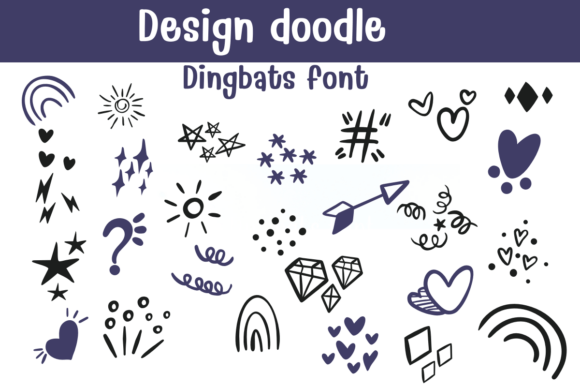
Introducing Design Doodle Font: Add Whimsy and Charm to Your Designs
Are you looking for a font that can add a touch of playfulness and creativity to your designs? Look no further than Design Doodle Font! This delightful dingbats font is filled with whimsical elements like stars, hearts, arrows, sparkles, swirls, and fun hand-drawn shapes that are perfect for adding charm to planners, scrapbooks, stickers, branding, and social media graphics.
What is Design Doodle Font?
Design Doodle Font is a unique and playful dingbats font that is designed to add a touch of whimsy to your designs. The font is filled with a wide range of fun and creative elements, including stars, hearts, arrows, sparkles, swirls, and hand-drawn shapes. These elements can be used to add visual interest and personality to a variety of design projects, from planners and scrapbooks to stickers and social media graphics.
Features of Design Doodle Font
Design Doodle Font comes with a wide range of features that make it the perfect choice for adding a touch of whimsy to your designs. Some of the key features of this font include:
- Whimsical elements: The font includes a wide range of whimsical elements, such as stars, hearts, arrows, sparkles, swirls, and hand-drawn shapes.
- Playful dingbats: Design Doodle Font is a dingbats font, which means that it includes a wide range of playful and creative symbols that can be used to add visual interest to your designs.
- Hand-drawn shapes: The font includes a range of hand-drawn shapes that can be used to add a touch of personality to your designs.
- Perfect for planners and scrapbooks: Design Doodle Font is perfect for adding a touch of whimsy to planners and scrapbooks.
- Ideal for stickers and social media graphics: The font is also ideal for use in stickers and social media graphics, where a playful and creative touch is often needed.
Uses of Design Doodle Font
Design Doodle Font is a versatile font that can be used in a wide range of design projects. Some of the most popular uses for this font include:
- Planners: Design Doodle Font is perfect for adding a touch of whimsy to planners and organizers.
- Scrapbooks: The font is also ideal for use in scrapbooks, where it can be used to add a playful and creative touch to photos and other elements.
- Stickers: Design Doodle Font is perfect for use in stickers, where a playful and creative touch is often needed.
- Branding: The font can also be used in branding projects, where it can be used to add a touch of personality and whimsy to logos and other branding elements.
- Social media graphics: Design Doodle Font is ideal for use in social media graphics, where a playful and creative touch is often needed to grab the attention of viewers.
Benefits of Using Design Doodle Font
There are many benefits to using Design Doodle Font in your designs. Some of the key benefits of this font include:
- Adds a touch of whimsy: Design Doodle Font adds a touch of whimsy and playfulness to designs, making them more visually interesting and engaging.
- Increases creativity: The font’s creative and playful elements can help to increase creativity and inspire new ideas.
- Perfect for a wide range of designs: Design Doodle Font is perfect for use in a wide range of designs, from planners and scrapbooks to stickers and social media graphics.
- Easy to use: The font is easy to use and can be easily integrated into a variety of design projects.
- Unique and eye-catching: Design Doodle Font is a unique and eye-catching font that can help your designs to stand out from the crowd.
Tips for Using Design Doodle Font
Here are a few tips for using Design Doodle Font in your designs:
- Use it sparingly: While Design Doodle Font is a fun and playful font, it can be overwhelming if used too much. Use it sparingly to add a touch of whimsy to your designs.
- Experiment with different colors: The font looks great in a variety of colors, so don’t be afraid to experiment and find the perfect color for your design.
- Pair it with other fonts: Design Doodle Font pairs well with a variety of other fonts, so don’t be afraid to experiment and find the perfect combination for your design.
- Use it to add visual interest: Use Design Doodle Font to add visual interest to your designs, such as in headings, subheadings, and other design elements.
Design Doodle Font is a unique and playful dingbats font that is perfect for adding a touch of whimsy to a wide range of design projects. With its creative and playful elements, this font is ideal for use in planners, scrapbooks, stickers, branding, and social media graphics. Whether you’re looking to add a touch of personality to your designs or simply want to create something fun and playful, Design Doodle Font is the perfect choice.